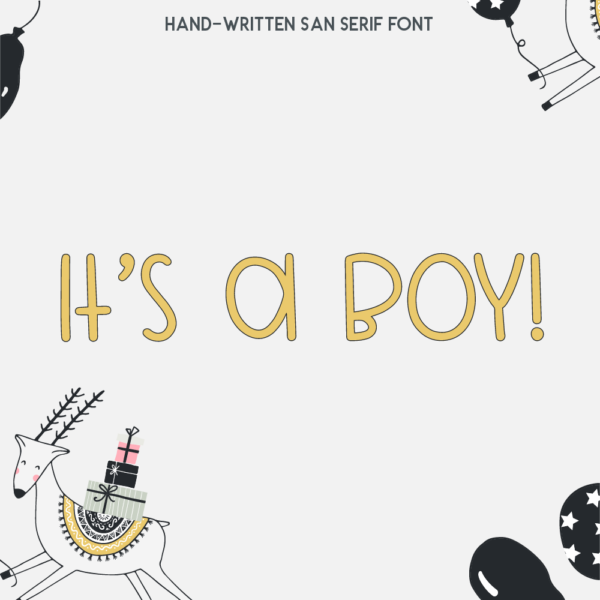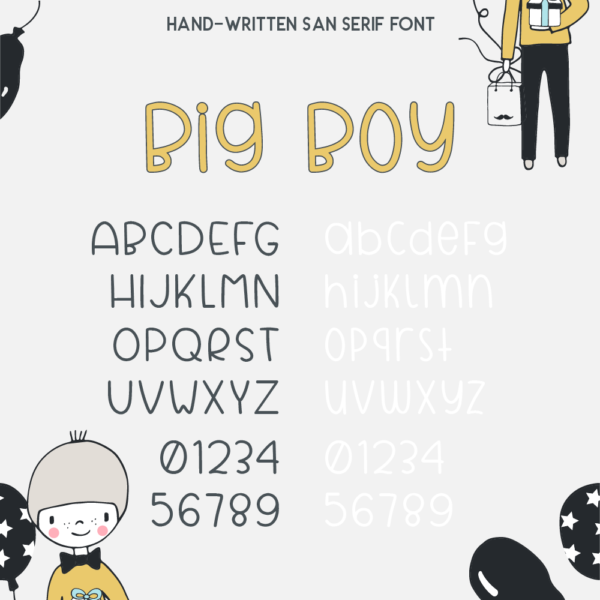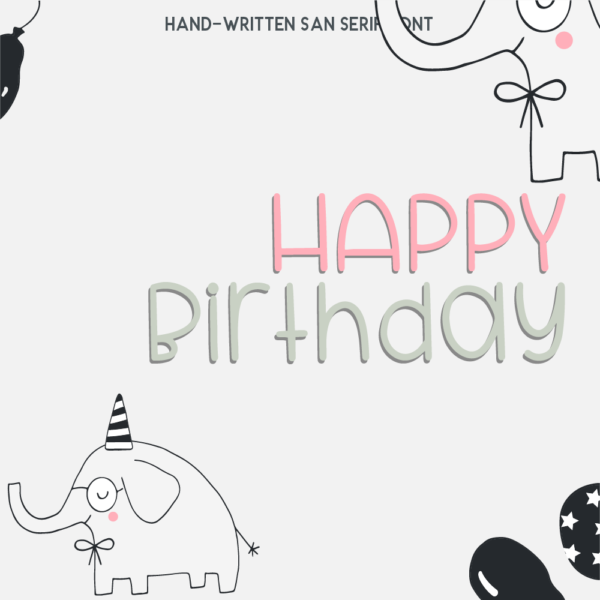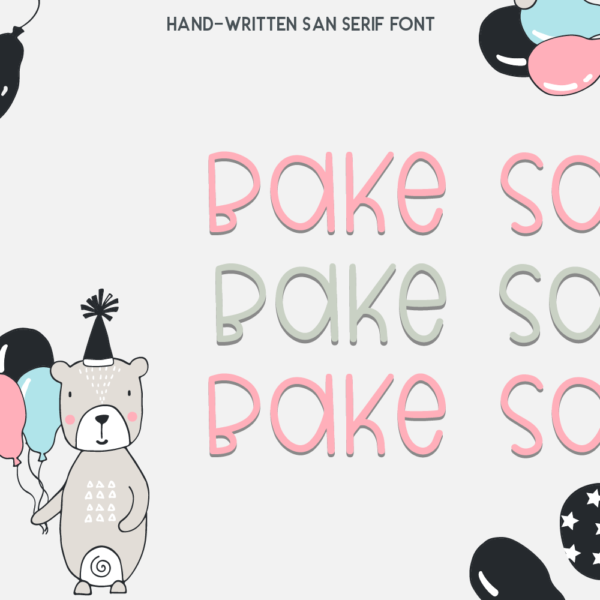
Big Boy Font
Big Boy Font, made exclusively by LoveSVG.com, is a cut friendly font compatible with Cricut, Silhouette, SCAL and Scan N Cut. Its thickness makes it an ideal font for making cut files.
- Uppercase, numbers & punctuation